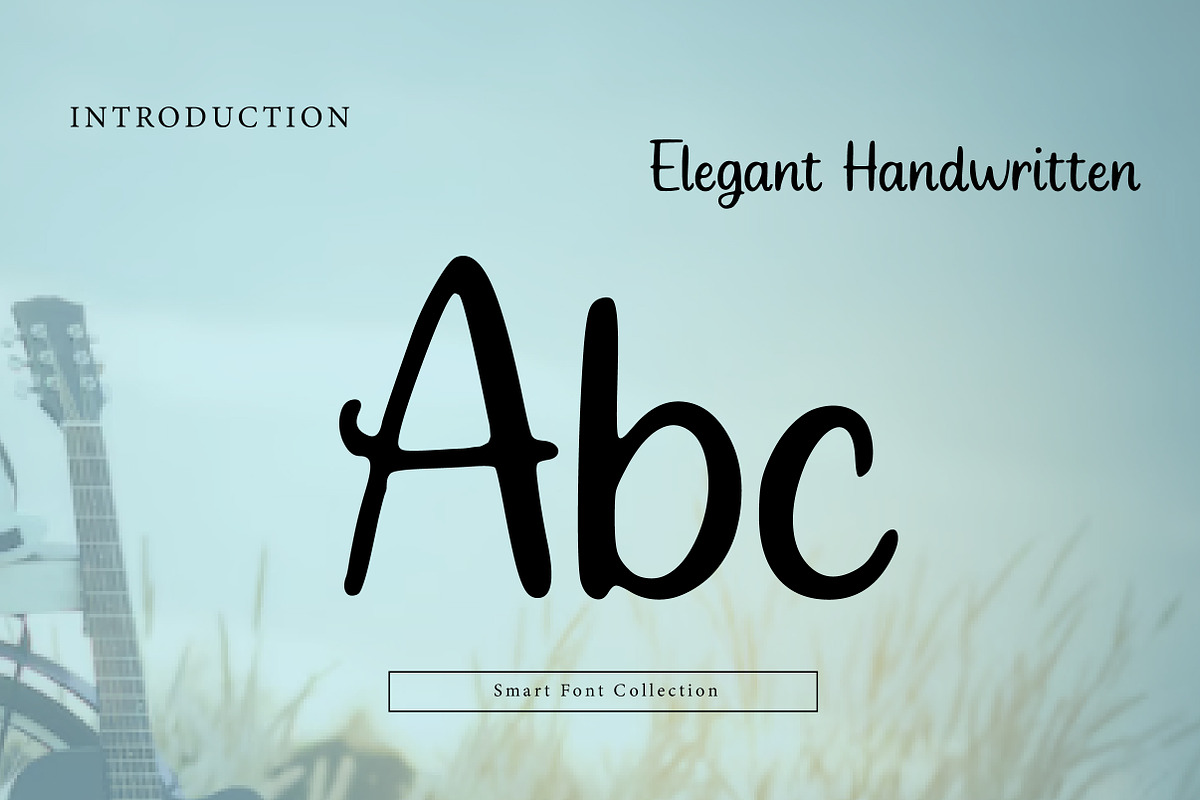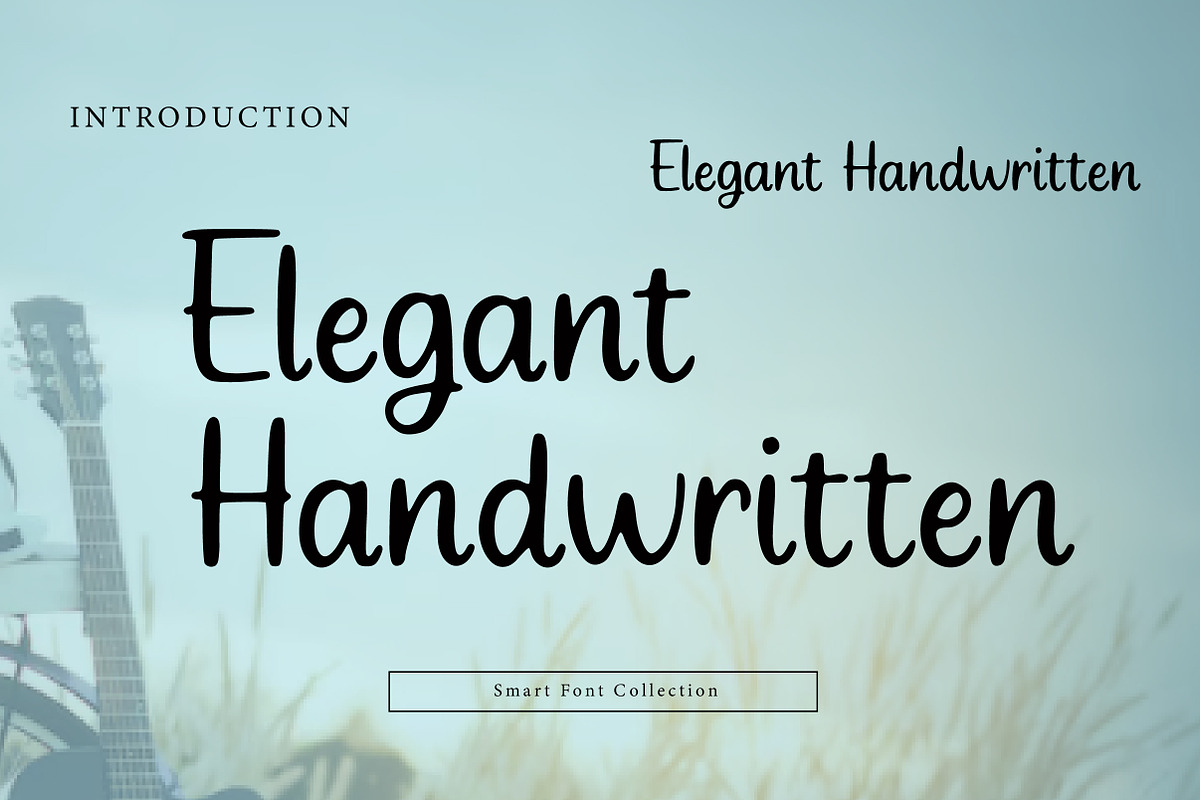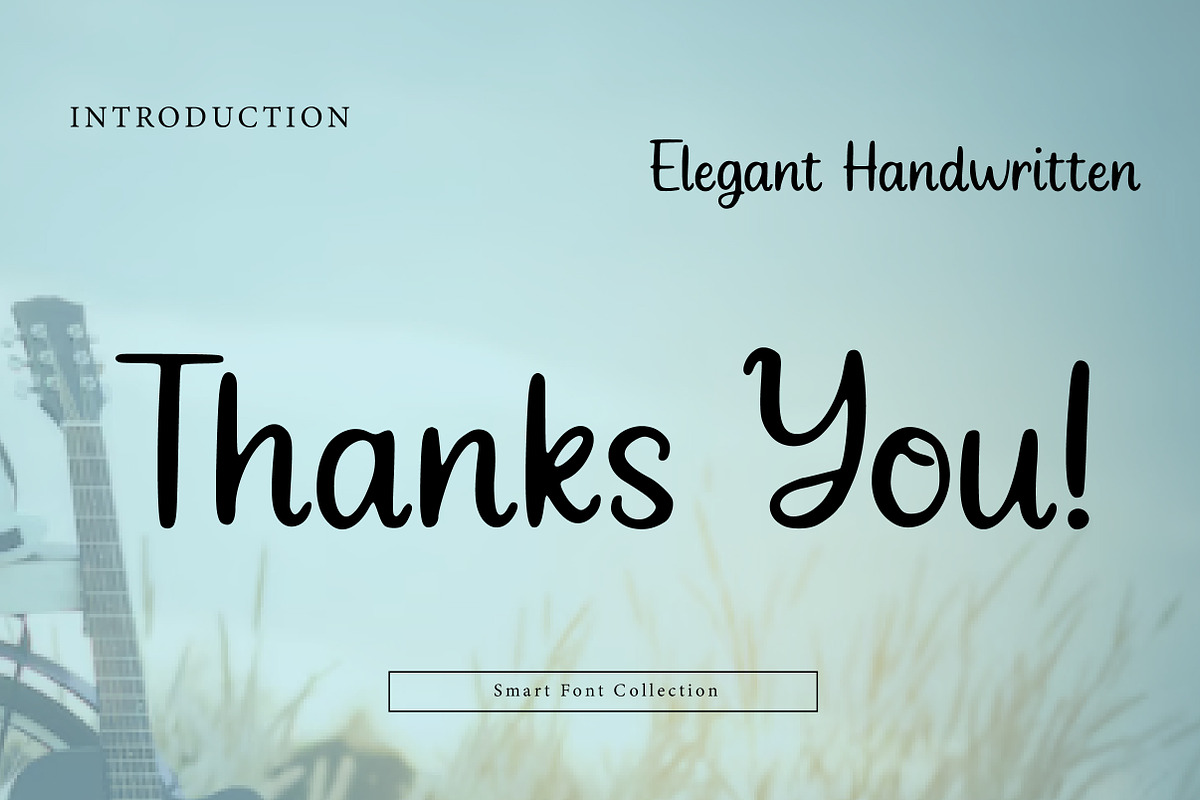
Elegant Handwritten
Elegant Handwritten is a graceful, natural script font that captures the beauty of refined handwriting. With smooth strokes, gentle curves, and a relaxed handwritten rhythm, this typeface is perfect for invitations, branding, quotes, stationery, packaging, social media graphics, and personal projects. Elegant Handwritten delivers a clean yet expressive feel—ideal for designs that want to look personal, stylish, and effortlessly elegant.